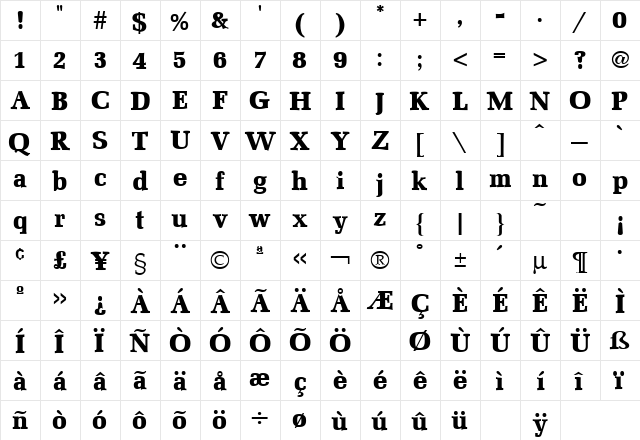
Mezzo Bold
Design Context for Mezzo Typeface
Mezzo offers clean, dependable letterforms without strong stylistic allegiance, making it a practical choice for designers who need flexibility. The heavy weight commands attention and anchors typographic hierarchies.